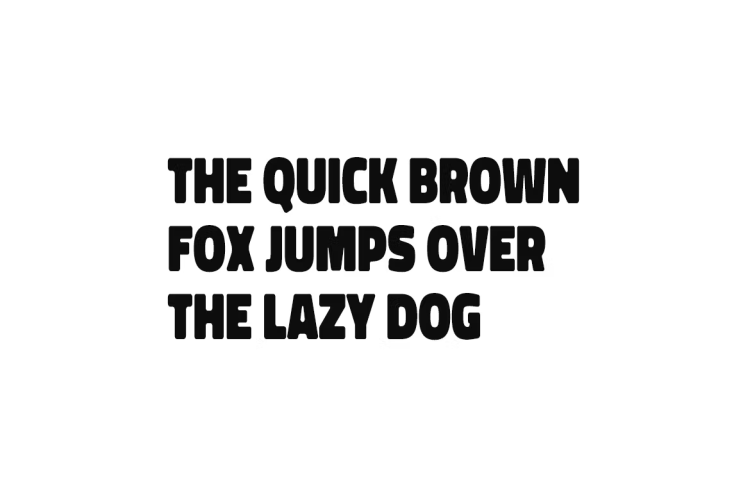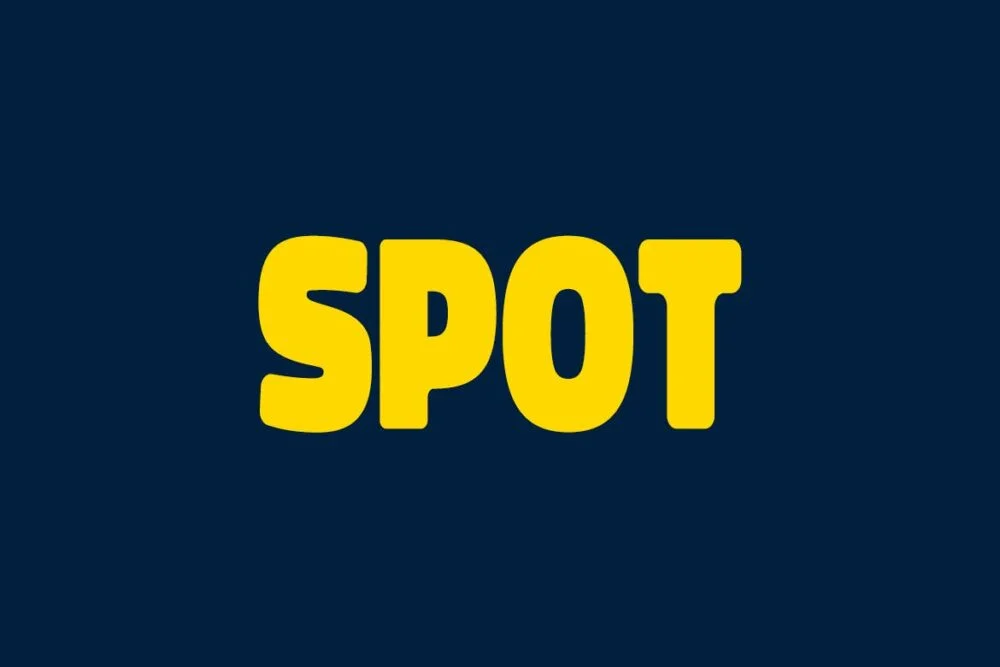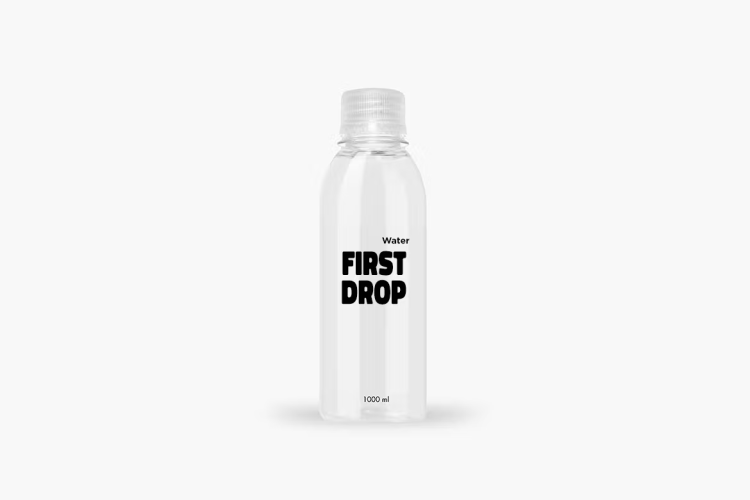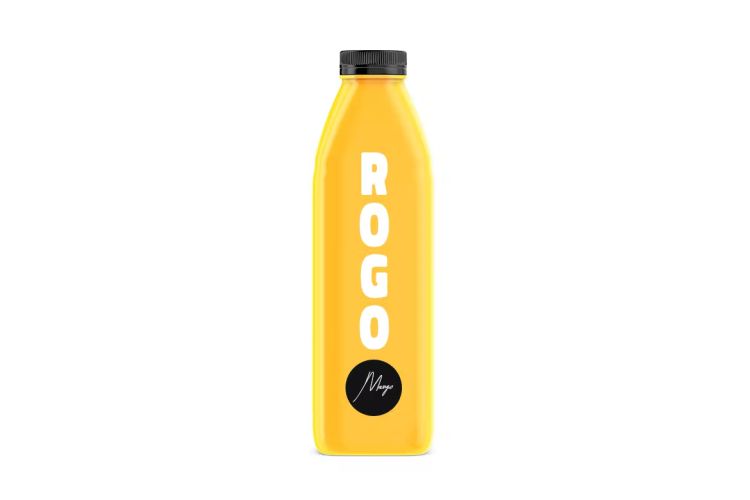
SPOT Unique Display Font
SPOT Unique Display Font is a modern all-caps typeface for headlines, big text, branding, logotypes & display usage. This font is also perfect for creating outstanding l…
SPOT Unique Display Font is a modern all-caps typeface for headlines, big text, branding, logotypes & display usage. This font is also perfect for creating outstanding logos, promotional content and marketing graphics that can really grab attention from your visitors. Please see the examples shown above to get an idea about the capability of this typeface.
Where SPOT Unique Display Font works best
SPOT Unique Display Font is built for size: event posters, hero headlines and billboard-style layouts.
High contrast display type like SPOT Unique Display Font reads instantly in thumbnails and motion graphics.
What is SPOT Unique Display Font good for?
SPOT Unique Display Font is a Display Fonts typeface tagged Branding, Display, Display Fonts, Modern. It works well for headlines, logos, posters, social media graphics and branding projects that need a distinctive display fonts look.
SPOT Unique Display Font previews